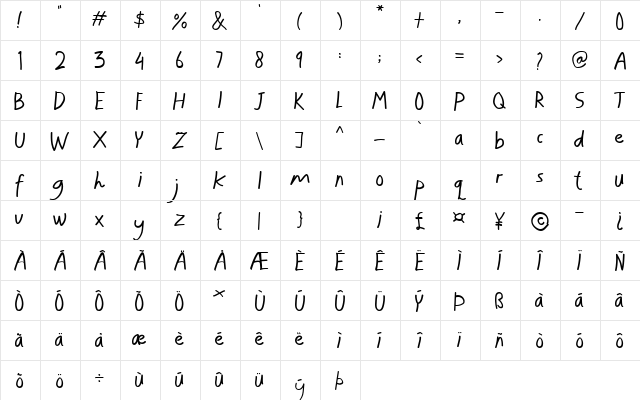
Just Like Regular
| Designer | Ahmad Muslimin |
Design Context for Just Like Typeface
Just Like is a composed and adaptable typeface that performs quietly and consistently across a wide range of design contexts.